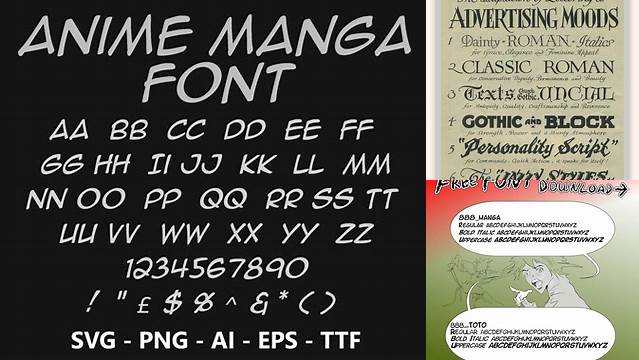
Procreate Manga Font Free: Unleash Your Inner Comic Artist
Hey, comic enthusiasts! Are you ready to level up your manga creations on Procreate? If so, you're in the right place! We're diving deep into the world of Procreate manga font free options, helping you find the perfect typography to bring your stories to life. Finding the right font can seriously elevate your artwork. Think of it as the final touch that makes your manga panels pop! It's not just about picking a font; it's about choosing the right style to match your story's tone, characters, and overall vibe. Whether you're a seasoned pro or just starting out, understanding the nuances of manga fonts is key to creating a professional-looking comic. We'll cover everything from where to find these awesome free Procreate manga fonts to how to install and use them effectively. Let's get started!
Finding the Perfect Procreate Manga Font: Where to Look
Alright, let's get down to the nitty-gritty of finding those incredible Procreate manga fonts for free! This is where the fun begins. There are tons of resources available online, and it's all about knowing where to look. One of the best places to start your search is the world wide web. Websites dedicated to free fonts are goldmines. Sites like DaFont, Font Squirrel, and 1001 Fonts offer a wide variety of fonts, including many that are perfect for manga. Simply search for terms like "manga font," "comic font," or "Japanese font," and you'll be presented with a plethora of options. Always double-check the licensing information before you download. Most free fonts are available for personal use, but if you plan on using them commercially (e.g., selling your comic), you'll need to ensure the license allows for that. Make sure you read the licensing agreement. Another excellent resource for finding Procreate manga fonts free is DeviantArt. This platform is a haven for artists, and many talented individuals offer free font downloads or create custom fonts for the community. Search for "manga font download" or "free comic fonts," and you'll likely find some hidden gems. Be sure to check the artist's profile to understand their terms of use. Finally, don't underestimate the power of online forums and communities dedicated to comic art and digital art. Platforms like Reddit and various art-focused forums often have threads dedicated to font recommendations and free downloads. The community is usually very helpful and can provide valuable insights into which fonts work best for certain styles of manga. Guys, always be cautious when downloading fonts from the internet. Make sure you're downloading from a reputable source to avoid malware or viruses. Scanning the downloaded files with your antivirus software is always a good idea before installing them on your device. Keep exploring and experimenting with various fonts to discover the perfect styles that match your unique artistic vision! This is a great way to enhance your ability.
Specific Font Recommendations
Okay, let's talk about some specific font recommendations that you can explore to help you get started. Some fonts are specifically designed to mimic the classic look of manga lettering, while others offer a more modern twist. Here are a few popular options to consider:
- Komika Axis: This is a very popular choice in the comic art scene, and it's a great choice if you are looking for a style that looks like manga.
- Digital Strip: A clean and versatile font that is great for dialogue bubbles and sound effects. It has a clear and readable style that works well for most manga styles.
- Manga Temple: Designed with manga in mind. Its playful and expressive style is good for creating authentic-looking dialogue in your comics.
- Anime Ace: You can use it to get a bold and dynamic look for your panels. It is suitable for both dialogue and sound effects. It can enhance the overall impact of your artwork and is good to express emotions.
These are just starting points, of course. The best font for your manga will depend on your specific style and the story you're telling. Don't be afraid to experiment and try out different fonts until you find the ones that resonate with you!
Tips for Using Manga Fonts Effectively in Procreate
Now that you have your Procreate manga fonts free and know how to install them, let's explore some tips for using them effectively in your manga creations. Remember, the right font can dramatically impact your comic's readability and aesthetic. Here's some guidance: